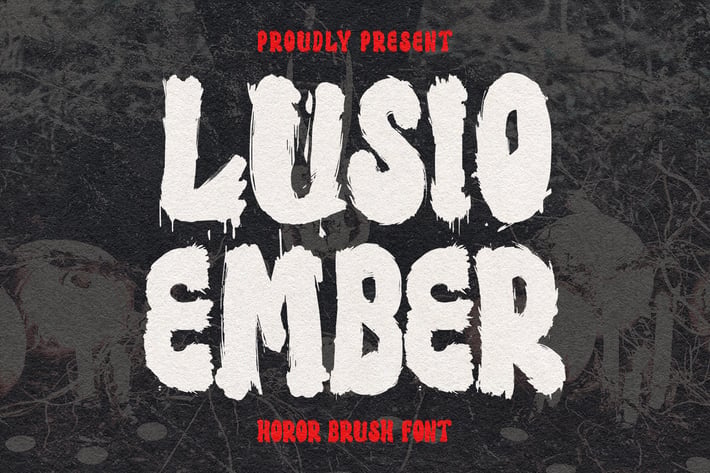
Lusio Ember Horor Brush Font
Lusio Ember horor brush font. Heavy stroke, fun character with a bit of ligatures. To give you an extra creative work. Lusio Ember horor brush font support multilingual more than 100+ language. This font is good for logo design, Social media, Movie Titles, Books Titles, a short text even a long text letter and good for your secondary text font with script or serif. Make a stunning work with Lusio Ember horor brush font.